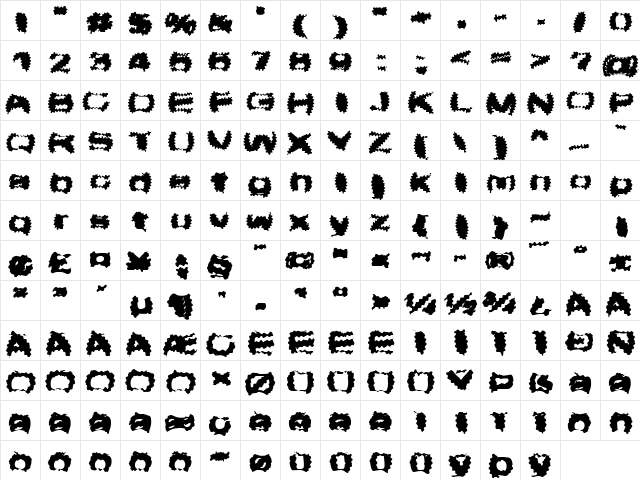
Mermaid Migrane Regular
Design Context for Mermaid Migrane Typeface
Mermaid Migrane is a composed and adaptable typeface that performs quietly and consistently across a wide range of design contexts.